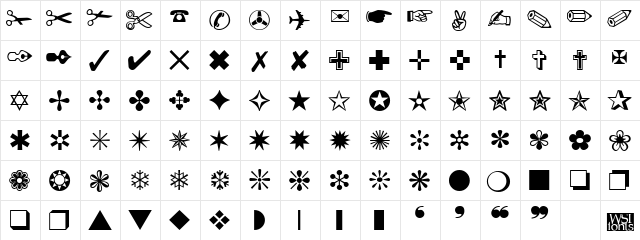
DingbatsOne Regular
Design Context for DingbatsOne Typeface
DingbatsOne takes a measured approach to typography — its balanced proportions and neutral character make it a reliable workhorse for both digital and print work.